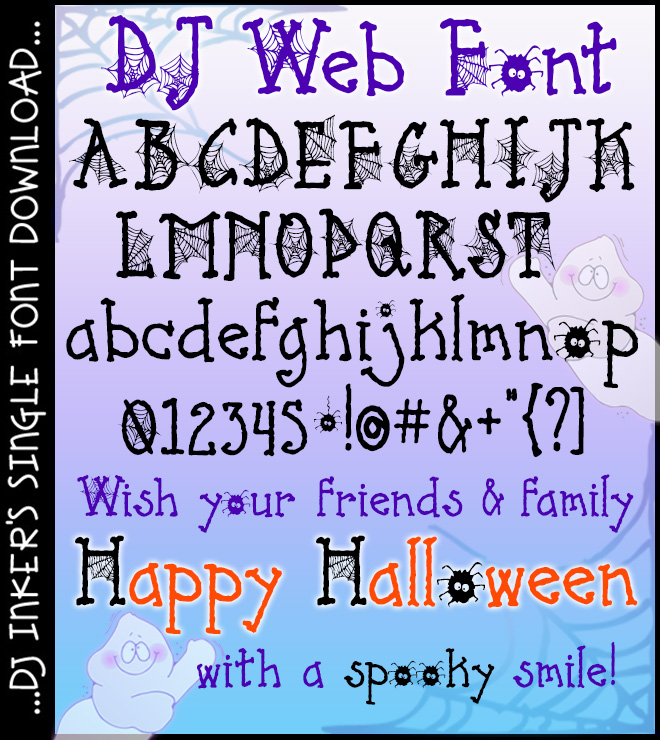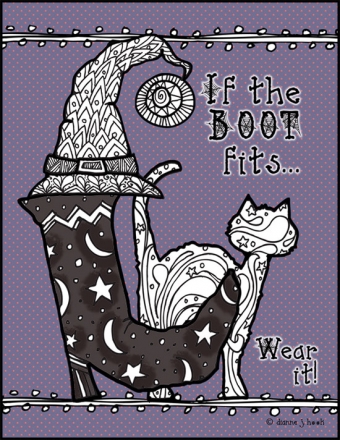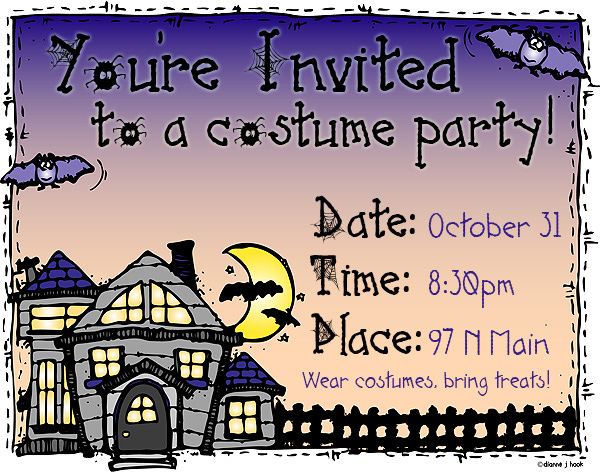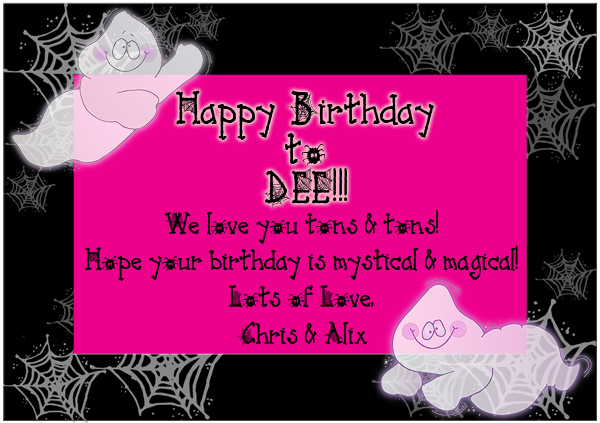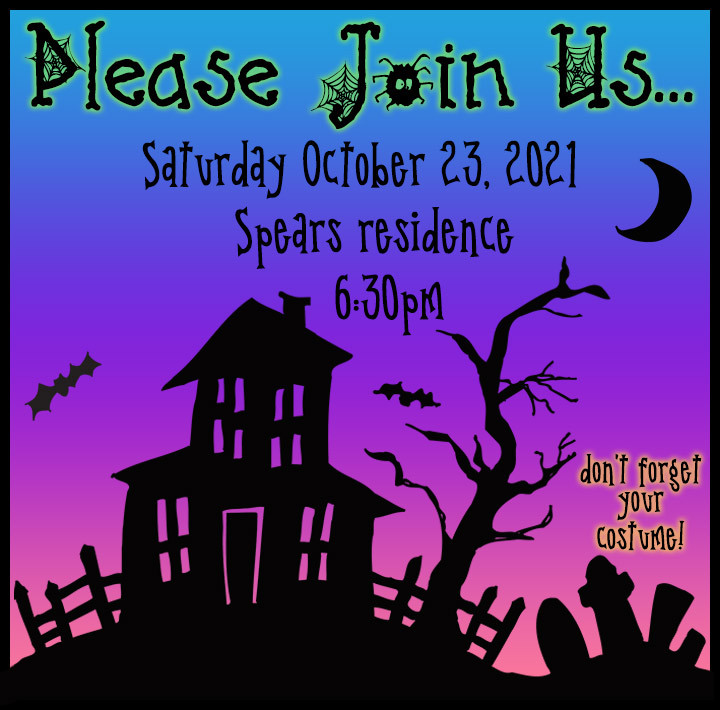
DJ Web Font Download
Spin a web of delightful party invitations, decorations, greeting cards,
costume awards & more with our wonderful DJ Web font! This
is spooky-cute lettering will be perfect for Halloween headlines. You'll
especially love the letter 'o' when you type!